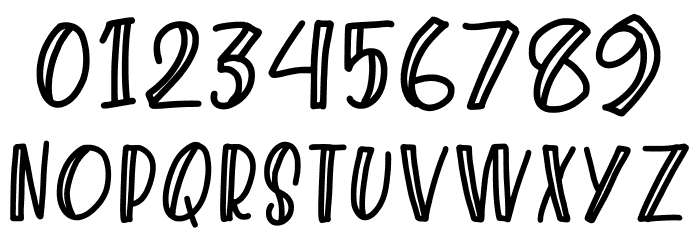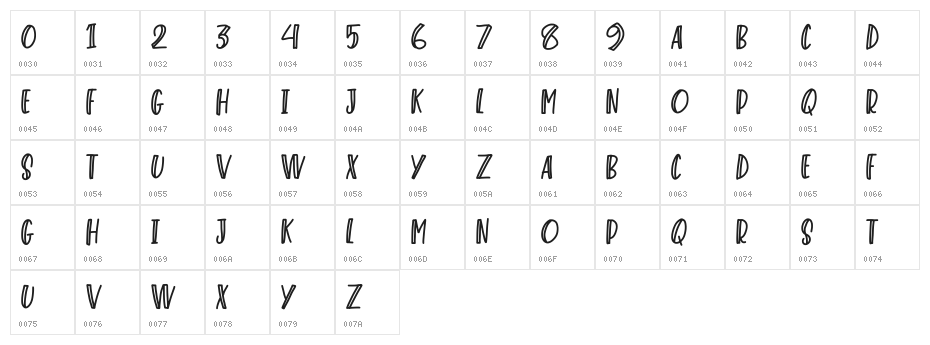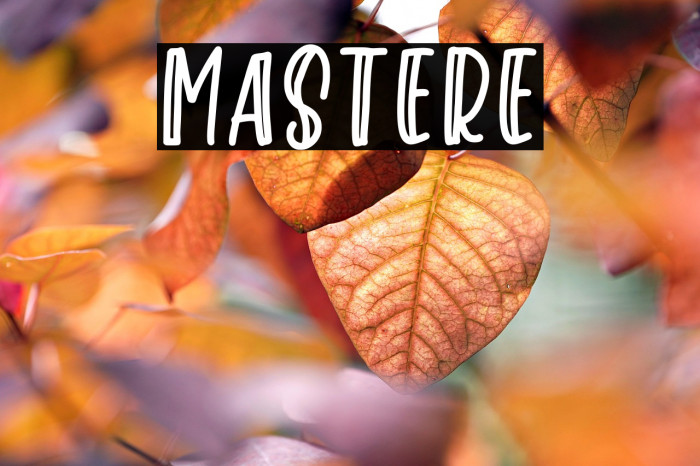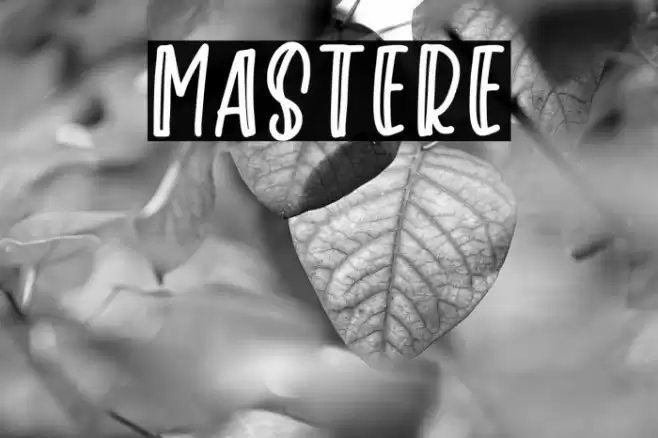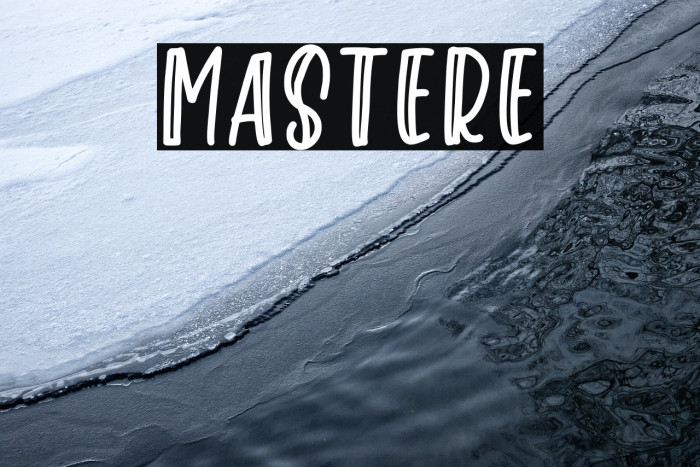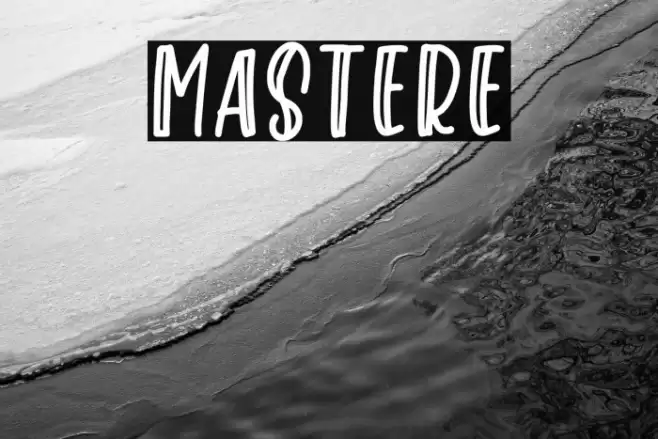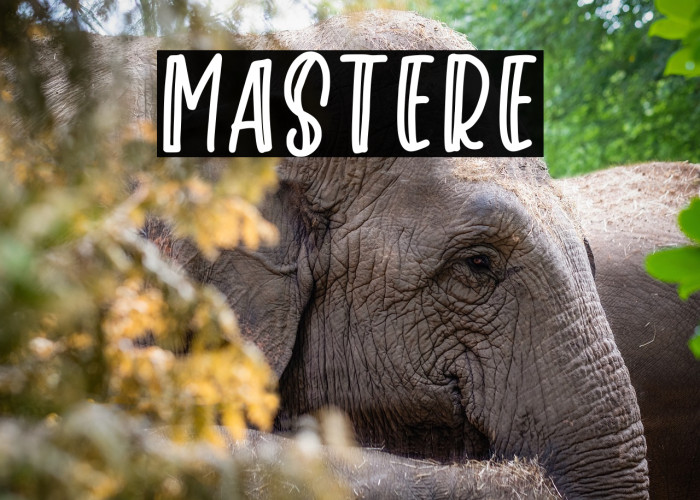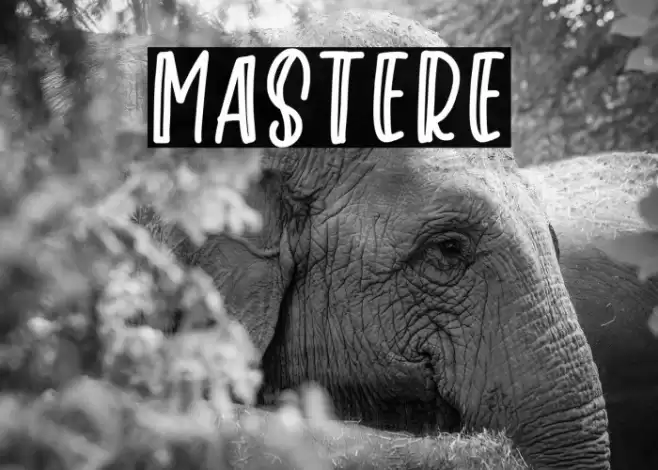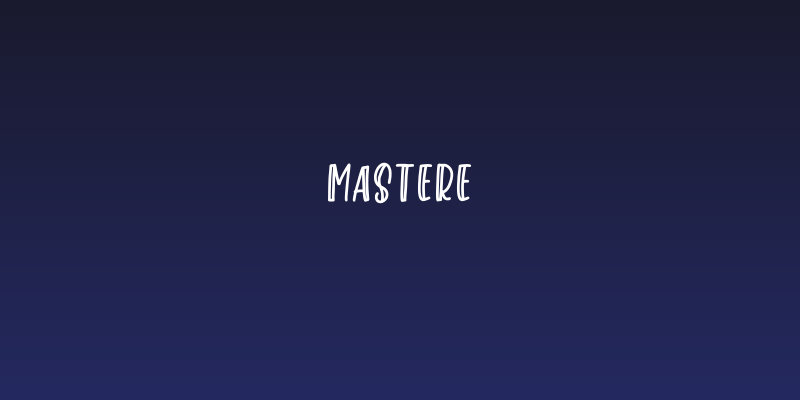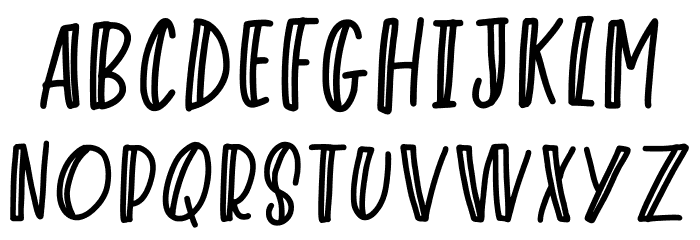
Mastere Font
Mastere Description
This font features a playful and energetic handwritten style with a bold, dynamic presence. The characters are slightly slanted, giving a sense of movement and fluidity. Each letter is distinct, with a consistent stroke width that adds to its legibility. The font maintains a casual and informal tone, making it suitable for creative and expressive projects. The numbers and special characters are designed to match the lively style of the alphabet, ensuring a cohesive look across all text elements.
| Proposed Projects | Ideal for greeting cards, children's books, playful branding, and social media graphics. |